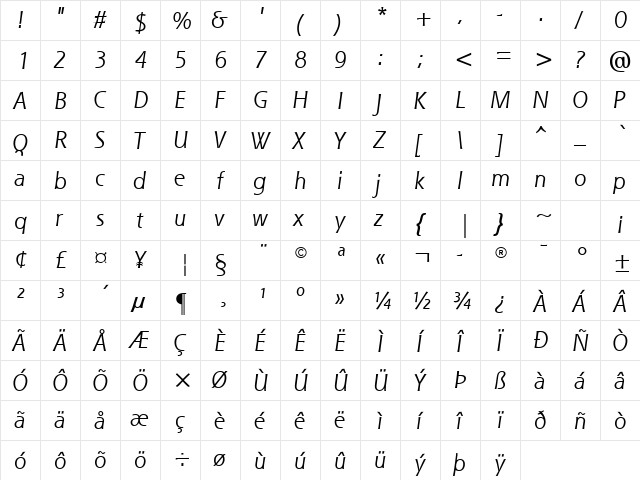
Misty Mountain 2 Italic
Design Context for Misty Mountain 2 Typeface
Misty Mountain 2 is a composed and adaptable typeface that performs quietly and consistently across a wide range of design contexts. Its italic angle brings a sense of urgency and motion to the letterforms.
Pro Tip: Try Misty Mountain 2 for annotation and caption copy alongside an upright companion — the contrast in angle creates a dynamic but ordered typographic system.